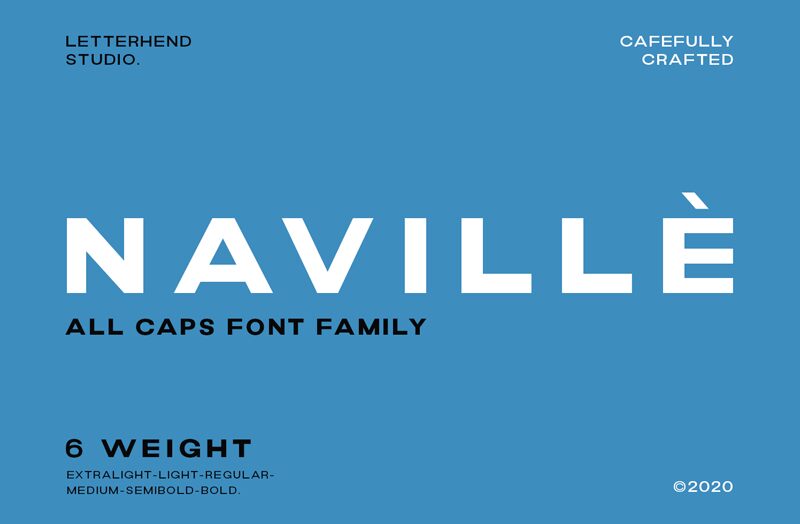
Naville is a modern and sophisticated sans serif typeface designed by Egi Ahmad Mufid. Its semi-light weight and expanded width make it perfect for a variety of projects, from elegant wedding invitations to bold advertising campaigns. Naville's clean lines and simple yet stylish design lend themselves well to branding materials such as logos, business cards, and packaging. This font is also suitable for website design, with its legibility making it easy to read on screens of all sizes. Give your next project a touch of sophistication with Naville!